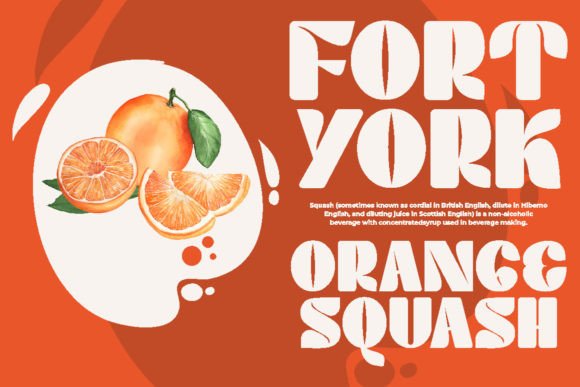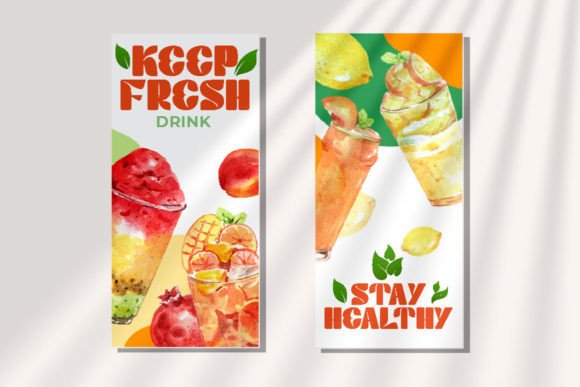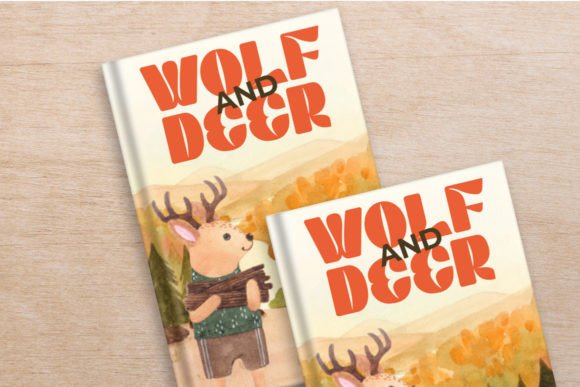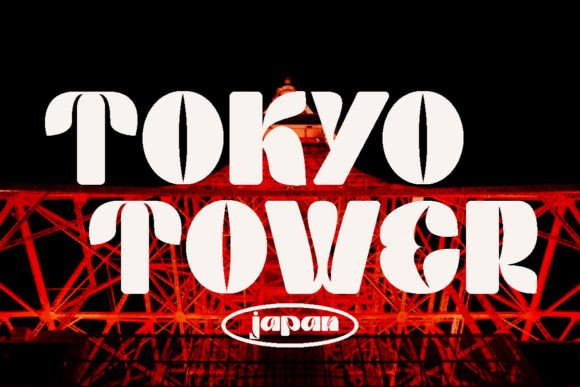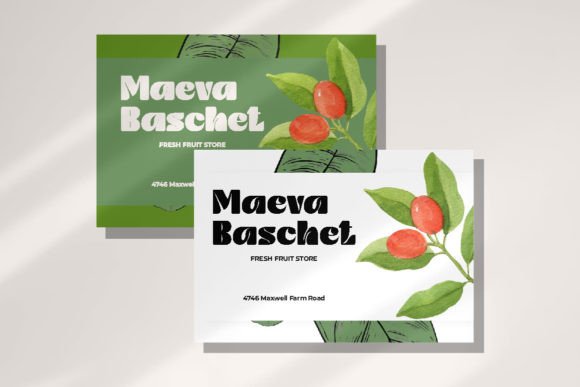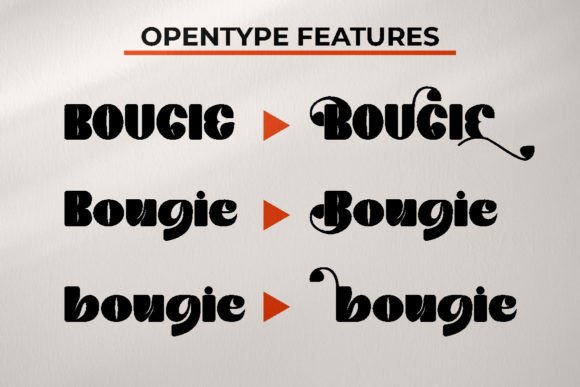
Introduction to Nipsey Font
You’ve just landed on the perfect track to inspire your next design project. Maybe it’s a music album cover, a vintage-style poster, or a quirky t-shirt design. Whatever it is, you’re on the hunt for the perfect font to give it that extra oomph. That’s where Nipsey Font comes in – a modern display font that’s about to take your creative project to the next level.
With its chunky characters inspired by the iconic albums and posters of 1970s music bands, Nipsey Font is the ultimate design resource for anyone looking to add a touch of retro flair to their work. Whether you’re a seasoned designer or just starting out, this high-quality font is sure to become a staple in your toolkit.
Nipsey Font
• Unique design inspired by the Crenshaw District in Los Angeles, paying tribute to the late rapper Nipsey Hussle.
• High-quality font, suitable for a wide range of creative projects, from logos and branding to typography and graphics.
• Designed to be scalable, with a resolution of up to 300 DPI, ensuring crisp and clear text even at large sizes.
• Perfect for designers and artists looking for a unique and meaningful design resource to add to their creative projects.
Honest Review: Nipsey Font
I recently had the chance to work with the Nipsey Font for a creative project, and I have to say, I was impressed. This free download is a great addition to any designer’s toolbox.
What works well is the font’s modern aesthetic and versatility. It’s perfect for a wide range of design applications, from logos to typography-heavy websites. I love how easy it is to customize and style the font to fit my project’s needs. Plus, the transparent background feature makes it a breeze to layer over different images and textures.
Here are some of my favorite features:
• High-quality design: The Nipsey Font is crisp and clear, making it perfect for large-scale designs.
• Easy to customize: The font’s modular design makes it simple to adjust the size, color, and style to suit your project.
• Transparent background: This feature is a game-changer for designers who need to layer text over images.
However, there are some limitations to keep in mind:
• ⚠️ Limited font weights: While the font has a modern aesthetic, it’s limited to a few weights, which may not be suitable for all design projects.
• ⚠️ Not ideal for small text: The font’s size and style may not be the best choice for small text or body copy.
Overall, I’m a fan of the Nipsey Font. It’s a solid design resource that can elevate any creative project. While it has some limitations, I believe it’s worth exploring and incorporating into your design workflow.
The Nipsey Font is ideal for a variety of creative projects, including branding, logos, and business cards. It’s also great for creating social media graphics, posters, and flyers. You can download the Nipsey Font for free and use it in your next design project.
Getting the Most Out of Nipsey Font
To get the most out of the Nipsey Font, experiment with different font sizes, colors, and styles. Use the font in combination with other design elements to create a unique and eye-catching design. You can also use the Nipsey Font to create a design resource with a transparent background, making it easy to overlay on top of other images or graphics.